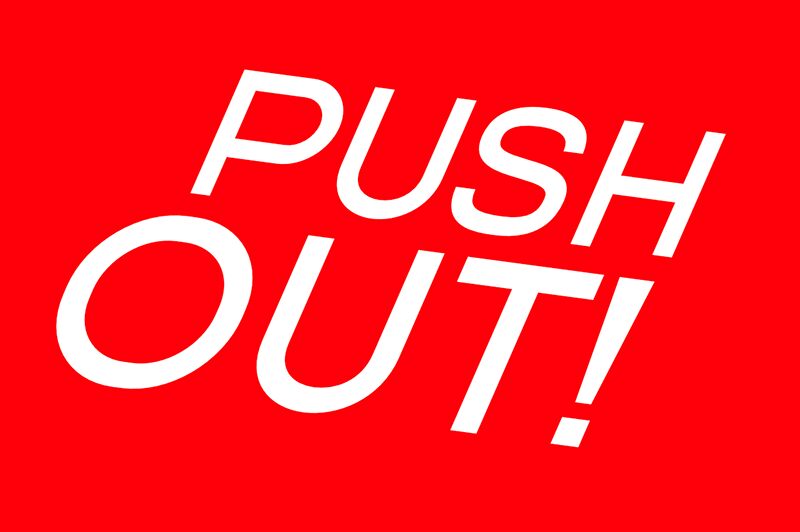
Getboreg font family designed by ffeeaarr is a free set of modern sans serif fonts. Getboreg combines an energetic and dynamic design that features straight forward and clean lines. Versatile, impactful, and assertive, this font family is suitable for professional applications and creative projects as well.
Make the most of Getboreg in branding projects, posters, business cards, headlines, web designs, package design, magazines, books, and social media posts. The font styles can also be used each on its own or combined in different possible setups.